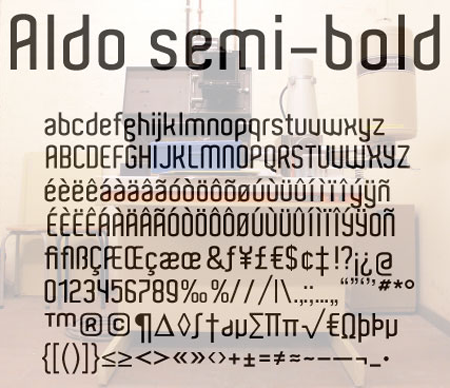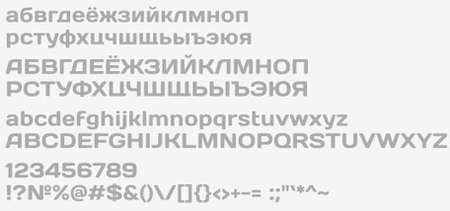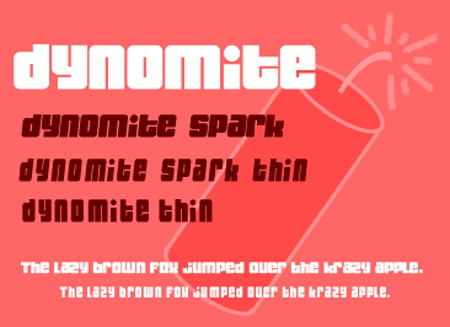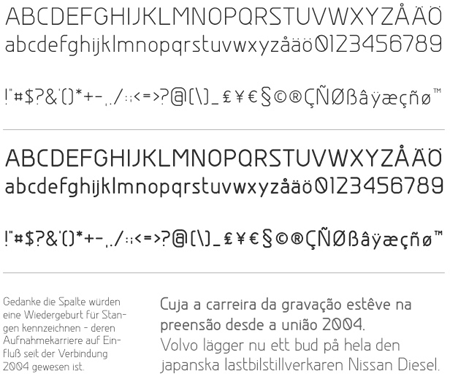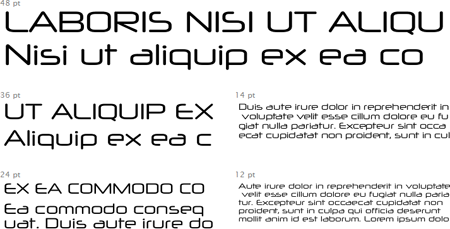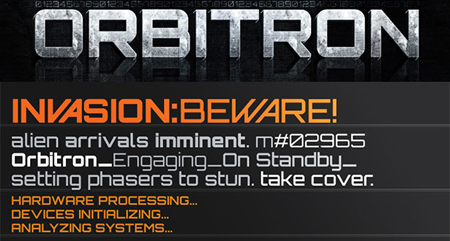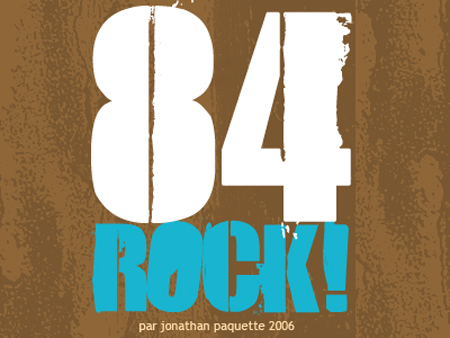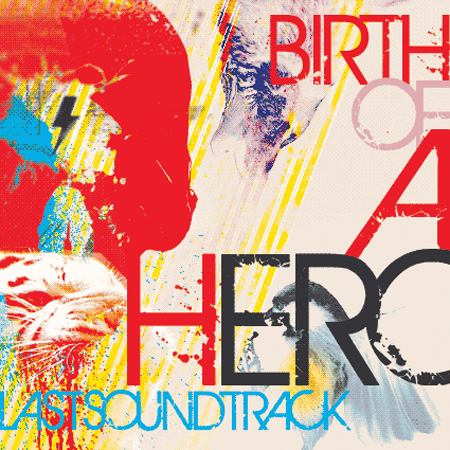
Free For All: Free Fonts Galore (Part 2)
Industrial Fonts
Always one of my favorite classifications of typefaces, industrial is clean, sharp, and dually futuristic and retrograde at the same time.
Ignis et Glacies Sharp (4 fonts)
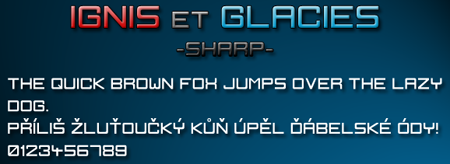
Grunge Fonts
Grimy, worn, torn, and stepped on best describe the feeling evoked by grunge typefaces, making them perfect for any project that isn’t gleaming, new, refined, or uppercrust.
Handwritten & Handdrawn Fonts
Nothing conveys that personal, homemade touch quite like handdrawn type and fonts created directly from real people’s handwriting.
Symbols and Dingbats
The irony of symbols and dingbats presented in font form is that a pictogram is often worth a thousand words.
AIGA Symbol Signs (EPS and GIF format)